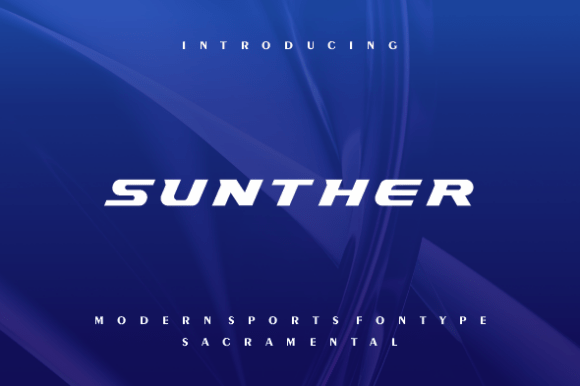
Sunther Font: Elevate Your Designs with a Modern Twist
In the world of typography, fonts play a crucial role in conveying messages, expressing emotions, and creating visual identities. Among the numerous fonts available, Sunther Font stands out as a modern and versatile typeface that can be combined in various ways to produce stunning results. In this article, we’ll explore the features, benefits, and applications of Sunther Font, and why it’s an excellent choice for headlines, logos, titles, and more.
What is Sunther Font?
Sunther Font is a contemporary typeface designed to provide a fresh and innovative look to various design projects. Its unique characteristics and clean lines make it an ideal choice for designers seeking a modern aesthetic. Sunther Font is highly versatile, allowing users to combine it with other fonts to create a distinctive visual style.
Key Features of Sunther Font
- Modern Design: Sunther Font boasts a sleek and modern design, making it perfect for projects that require a contemporary look and feel.
- Versatility: This font can be paired with various other fonts to create a unique visual identity.
- Legibility: Sunther Font is highly legible, ensuring that your message is conveyed clearly and effectively.
- Customizability: With Sunther Font, you can experiment with different combinations to achieve the desired effect.
Benefits of Using Sunther Font
Sunther Font offers several benefits that make it an attractive choice for designers. Some of the advantages include:
- Enhanced Visual Appeal: Sunther Font adds a touch of modernity to your designs, making them more visually appealing.
- Improved Readability: The font’s clean lines and clear structure ensure that your text is easy to read.
- Flexibility: Sunther Font can be used in various design projects, from headlines and logos to titles and body text.
- Time-Saving: With Sunther Font, you can quickly create stunning designs without spending hours on typography.
Best Use Cases for Sunther Font
Sunther Font is suitable for a wide range of design projects. Here are some of the best use cases:
- Headlines: Use Sunther Font to create attention-grabbing headlines that make a lasting impression.
- Logos: Sunther Font is an excellent choice for logos, as it provides a modern and professional look.
- Titles: Add a touch of elegance to your titles with Sunther Font.
- Posters: Use Sunther Font to create eye-catching posters that grab attention.
- Digital Media: Sunther Font is perfect for digital media, including social media graphics, blog posts, and website headers.
Tips for Using Sunther Font Effectively
To get the most out of Sunther Font, follow these tips:
- Experiment with Combinations: Try pairing Sunther Font with other fonts to create a unique visual style.
- Adjust Font Sizes: Play with font sizes to create visual hierarchy and emphasis.
- Use Color Strategically: Select colors that complement Sunther Font and enhance your design.
- Keep it Simple: Avoid overusing Sunther Font; use it sparingly to maintain its impact.
Sunther Font is a modern and versatile typeface that can elevate your designs to the next level. Its unique features, benefits, and applications make it an excellent choice for various design projects. By following the tips outlined in this article, you can harness the power of Sunther Font and create stunning designs that leave a lasting impression.
- What is Sunther Font? Sunther Font is a modern typeface designed for use in various design projects.